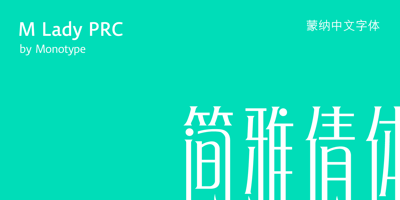
M Lady PRC Font Family was designed by Monotype HK Design and published by Monotype HK. M Lady PRC contains 1 styles and family package options. M Lady is a design inspired by Agfa Waddy’s rather elegant design comes with narrow proportion. M Lady is a rare condensed design in world of Chinese typefaces. Entry and finial points of strokes are squarish, with a sharp but small symmetric serif. It has a medium contrast to improve character recognition. Its thin stems (豎) make it suitable for fine print with minimal conglutination. Dots (點) are straight, reversely curved or round. Downstrokes (撇、捺), ticks (剔) and hooks (勾) are highly regular and consistent. Dots (點), downstrokes (撇、捺) and ticks (剔) are long, smooth, monolinear and curved with small symmetric serif and sometimes angled entry and finial points of strokes to create subtle sharpness in the midst of its softness and elegance, which is better for larger text print. Its features and construction create subtle sharpness in the midst of softness and slim elegance. It is best suited for casual subheading or display, set upright (non-slanted), non-condensed (naturally condensed).